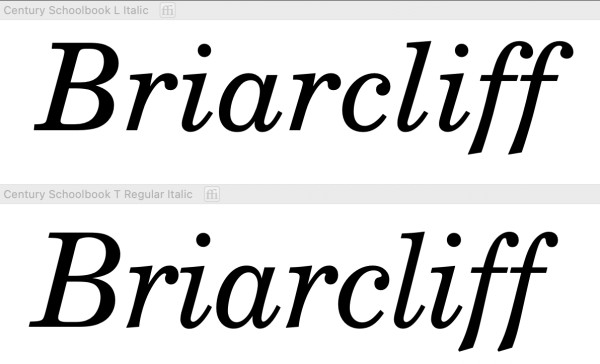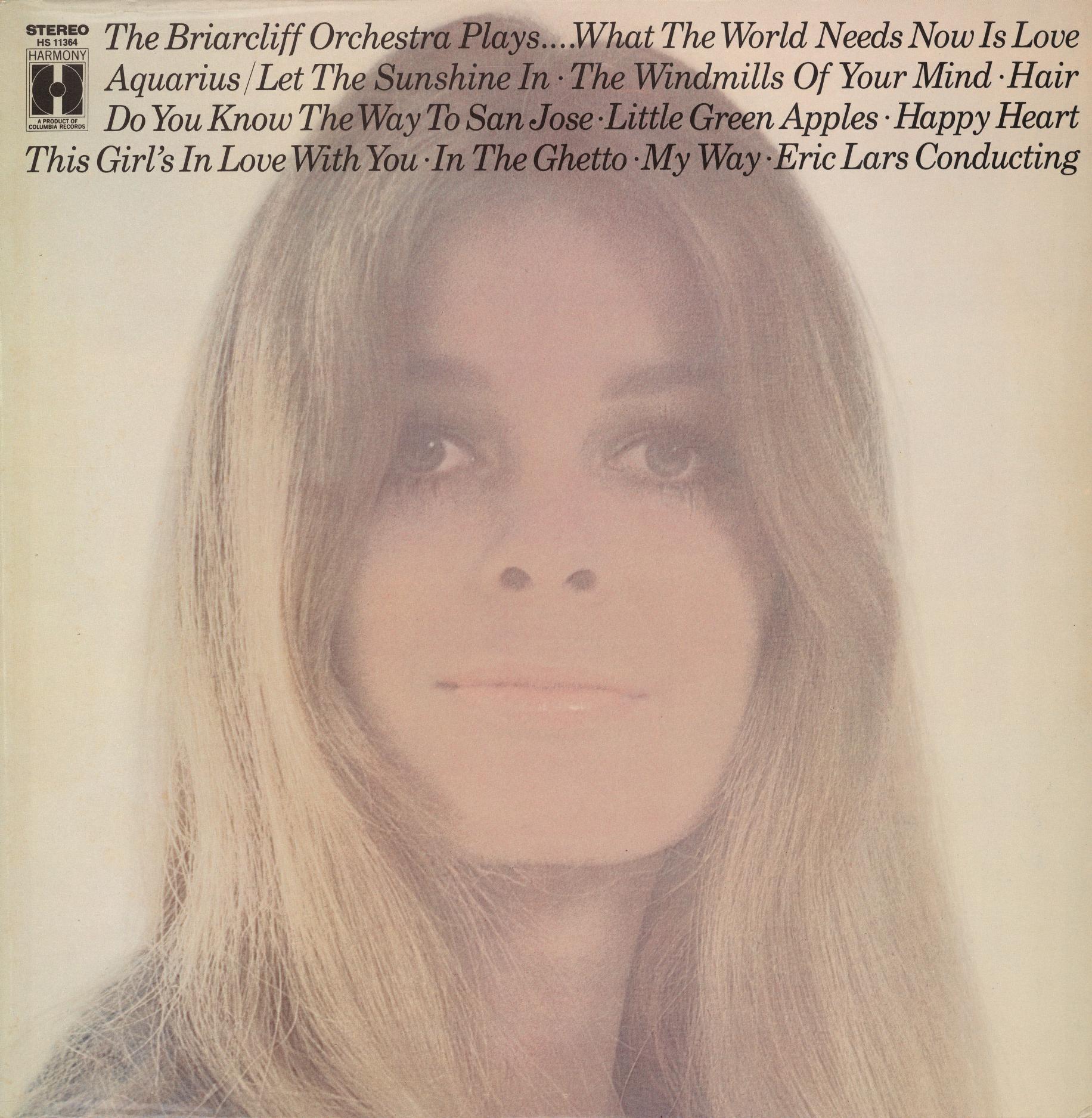
Is this in Century Expanded because it looks like it?
Offered by a number of foundries, but I like Elsner+Flake's cut: Century Schoolbook Italic
URW used to offer two versions, L and T, probably based on different sizes of the original. The latter comes closer to the version used on the cover. It’s narrower and has more flaring, see for example the terminals in r. The Elsner+Flake version suggested by Kevin is based on the same data as URW’s Century Schoolbook T Regular Italic.
I was just going on gut reaction to the previews I generated on MyFonts—nice to know there was an actual rationale behind it.